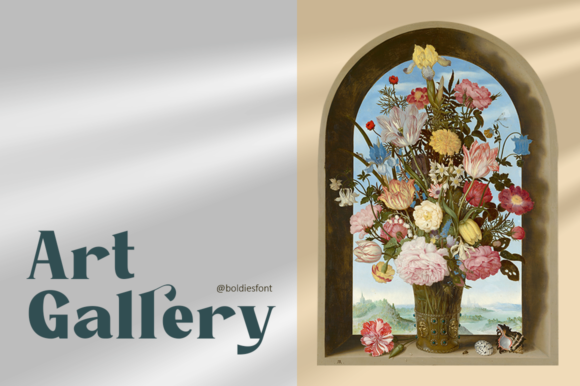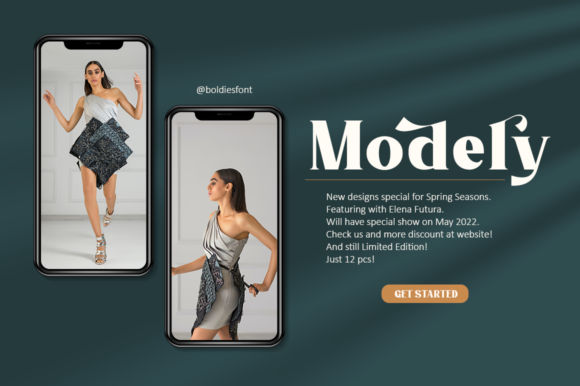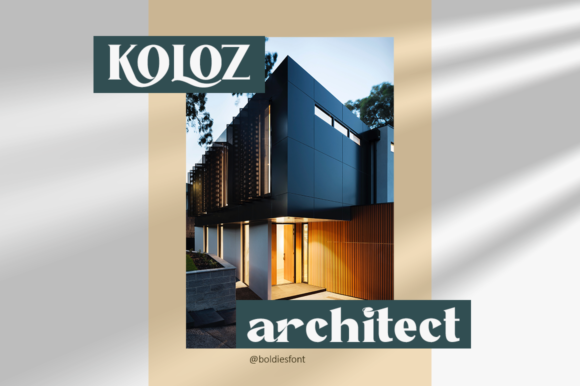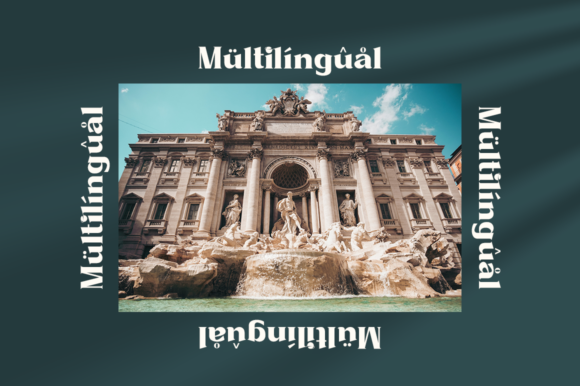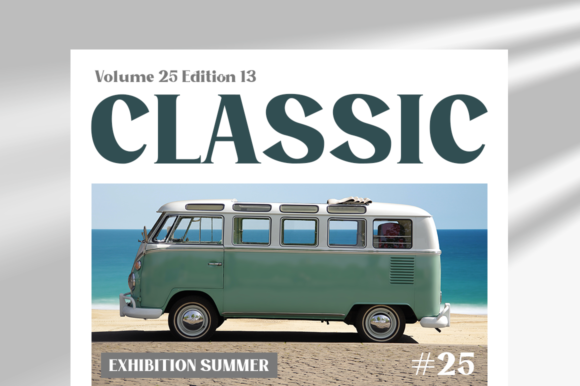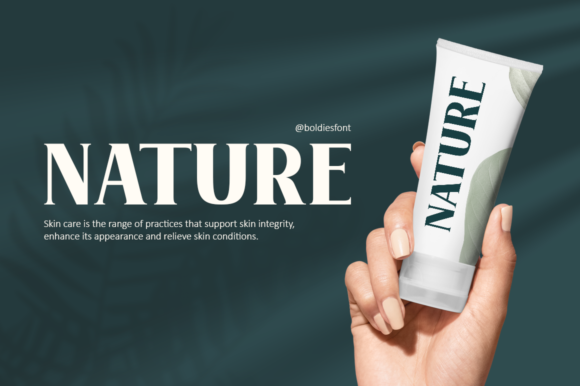
Introducing Boldies Font: A Perfect Blend of Modern and Classic
In the world of typography, fonts play a crucial role in making a design stand out. For designers and crafters, finding the right font can be a daunting task. However, if you’re looking for a font that seamlessly blends modern and classic concepts, look no further than Boldies Font. This serif font is a game-changer, offering a unique mix of traditional and contemporary elements that will elevate your designs to the next level.
What is Boldies Font?
Boldies Font is a serif font that combines the best of both worlds – modern and classic. Its unique design makes it perfect for a wide range of projects, from branding and advertising to packaging and digital media. The font’s classic serif elements provide a sense of tradition and stability, while its modern twists add a touch of sophistication and elegance.
Key Features of Boldies Font
So, what sets Boldies Font apart from other fonts? Here are some of its key features:
• Mix of Modern and Classic Concepts: Boldies Font brings together the best of both worlds, offering a unique blend of traditional and contemporary elements.
• Alternate Shapes: The font features alternate shapes that can be used to add a modern touch to your designs. These shapes can be used to create a unique and eye-catching visual identity.
• PUA Encoded: Boldies Font is PUA (Private Use Area) encoded, which means that you can access all of its amazing glyphs and ligatures with ease. This makes it easy to use the font in a variety of design software, including Adobe Creative Suite.
Benefits of Using Boldies Font
So, why should you choose Boldies Font for your next design project? Here are just a few benefits of using this versatile font:
• Stand Out from the Crowd: With its unique blend of modern and classic elements, Boldies Font is sure to make your designs stand out from the crowd.
• Easy to Use: The font’s PUA encoding makes it easy to access all of its glyphs and ligatures, even if you’re not a seasoned typography expert.
• Versatile: Boldies Font can be used in a wide range of design projects, from branding and advertising to packaging and digital media.
Who Can Benefit from Boldies Font?
Boldies Font is perfect for a wide range of designers and crafters, including:
• Graphic Designers: Whether you’re working on a branding project or creating advertising materials, Boldies Font is a great choice.
• Packaging Designers: The font’s unique blend of modern and classic elements makes it perfect for packaging design projects.
• Digital Media Designers: Boldies Font can be used in a variety of digital media projects, including website design, social media graphics, and more.
• Crafters: If you’re a crafter looking for a unique font to use in your projects, Boldies Font is a great choice.
In conclusion, Boldies Font is a versatile and unique serif font that blends modern and classic concepts. Its alternate shapes, PUA encoding, and ease of use make it a great choice for designers and crafters looking to elevate their designs. Whether you’re working on a branding project, packaging design, or digital media project, Boldies Font is sure to make your designs stand out from the crowd.